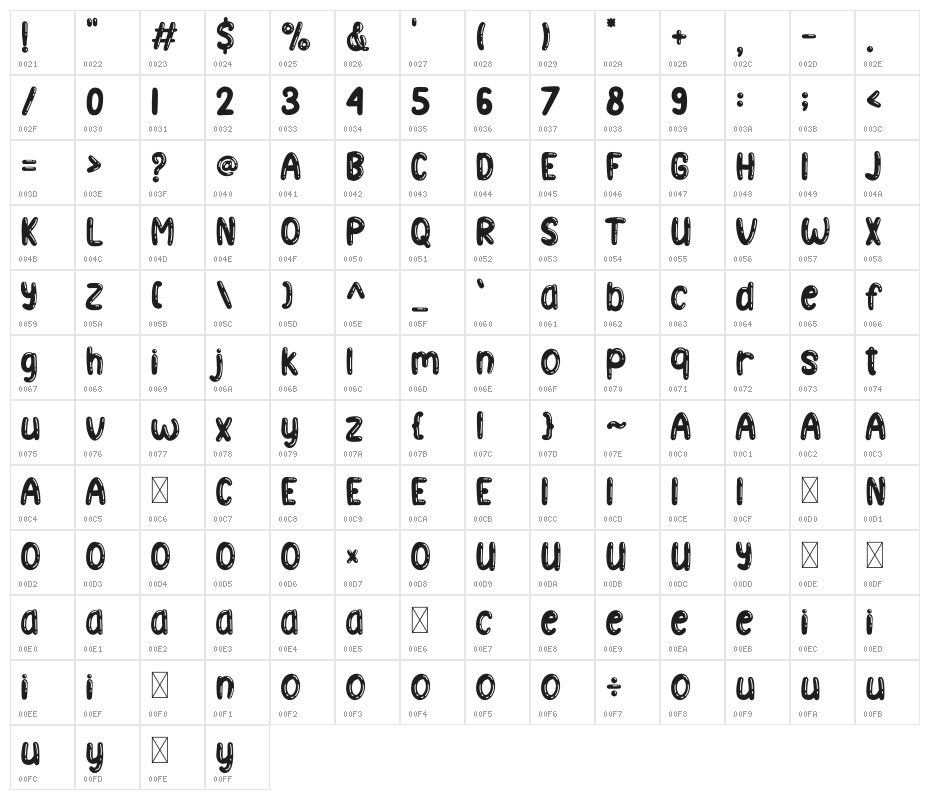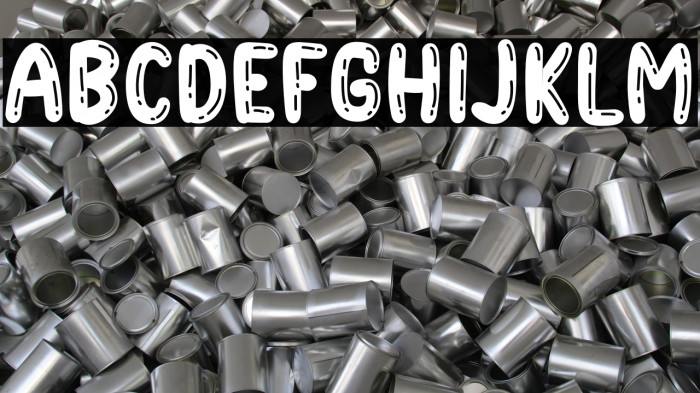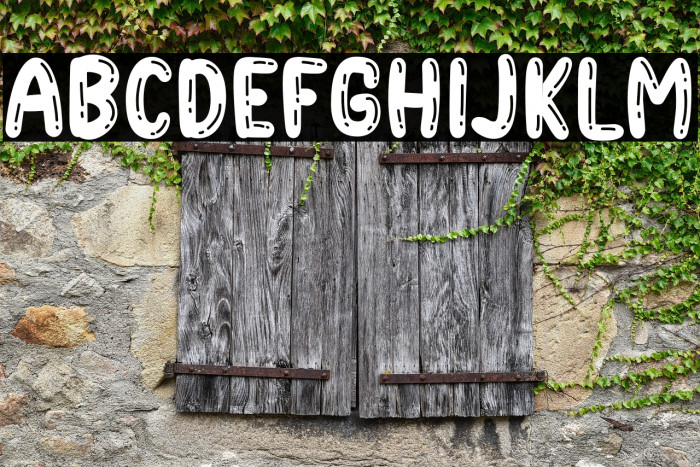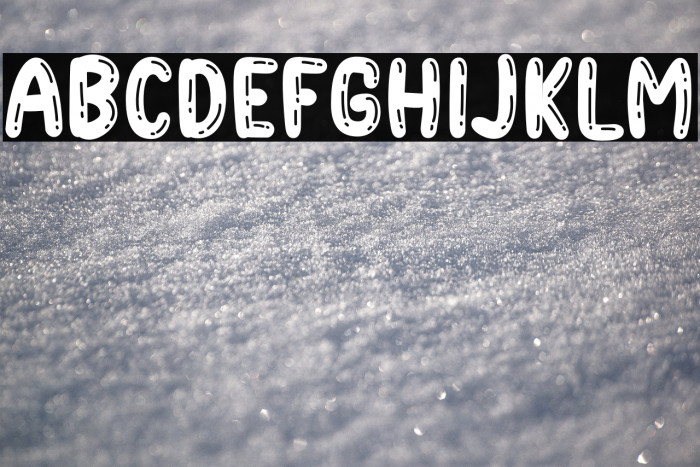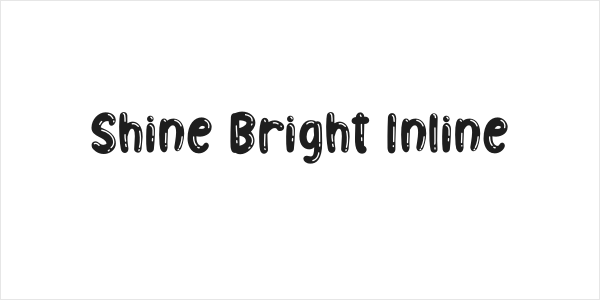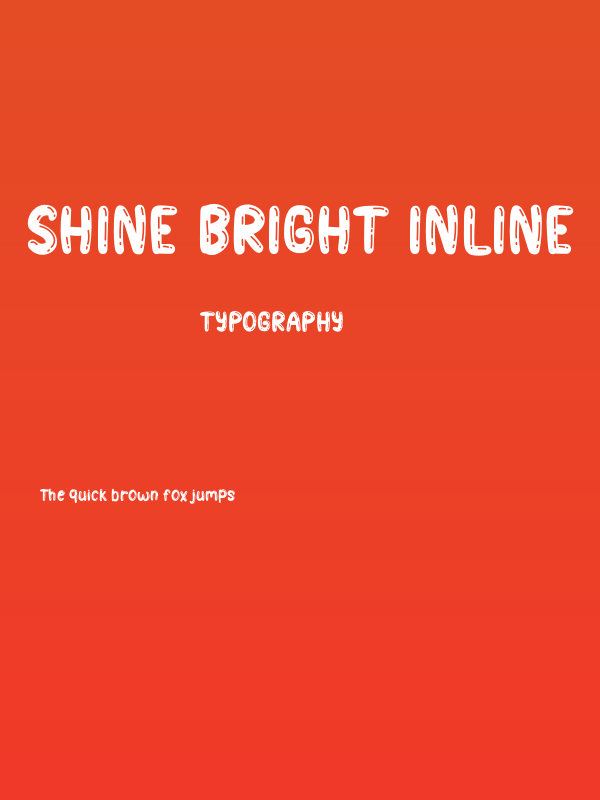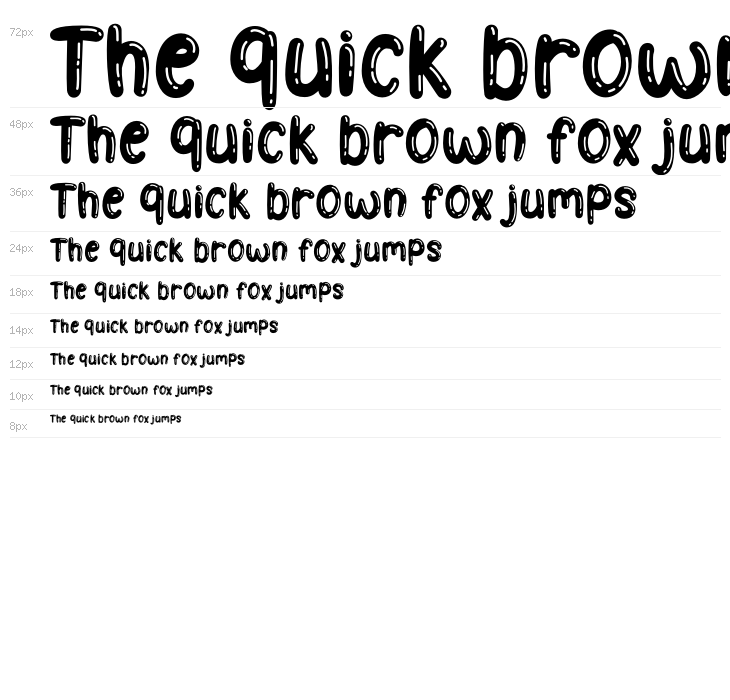
Shine Bright Inline Font
Shine Bright Inline Description
A playful, decorative font with bold, rounded characters featuring inline cutouts, creating a fun and dynamic appearance.
| Overall Style | Playful, Fun |
| Use Case | Headlines, Posters, Branding |
| Proposed Projects | Children's books, posters, playful branding. |